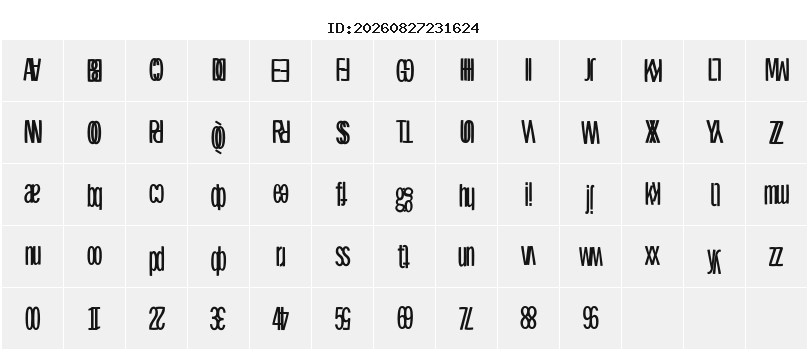
TwinSetSansThree Preview
About TwinSetSansThree.ttf
TwinSetSansThree.ttf is a modern, elegant sans-serif font designed for ultimate readability and visual harmony. Perfect for branding, headlines, web design, and print materials.